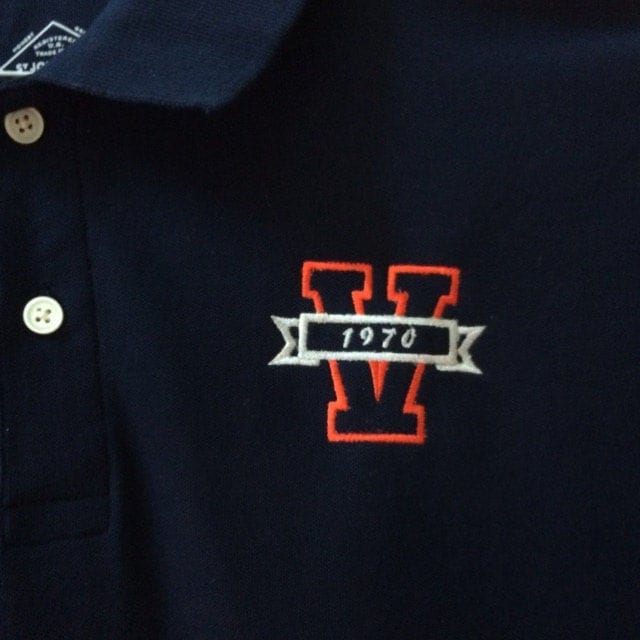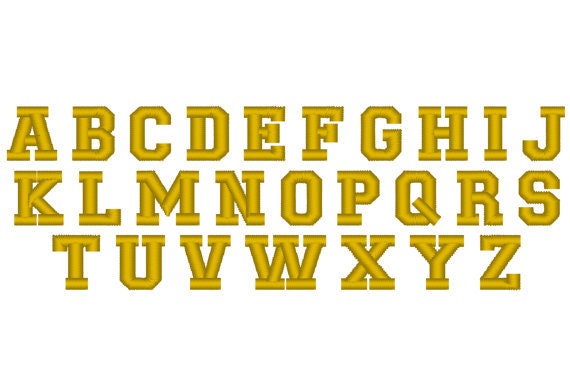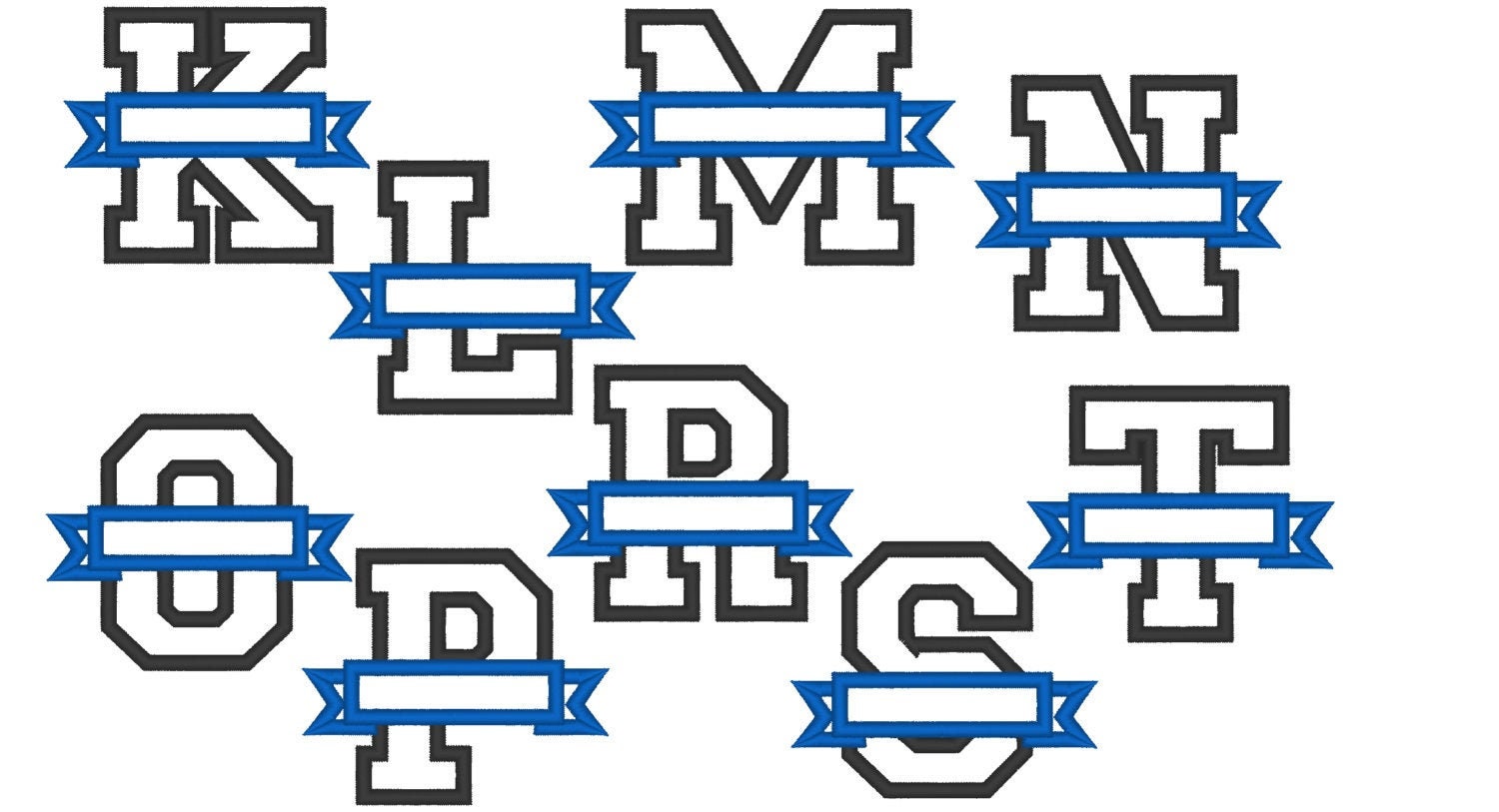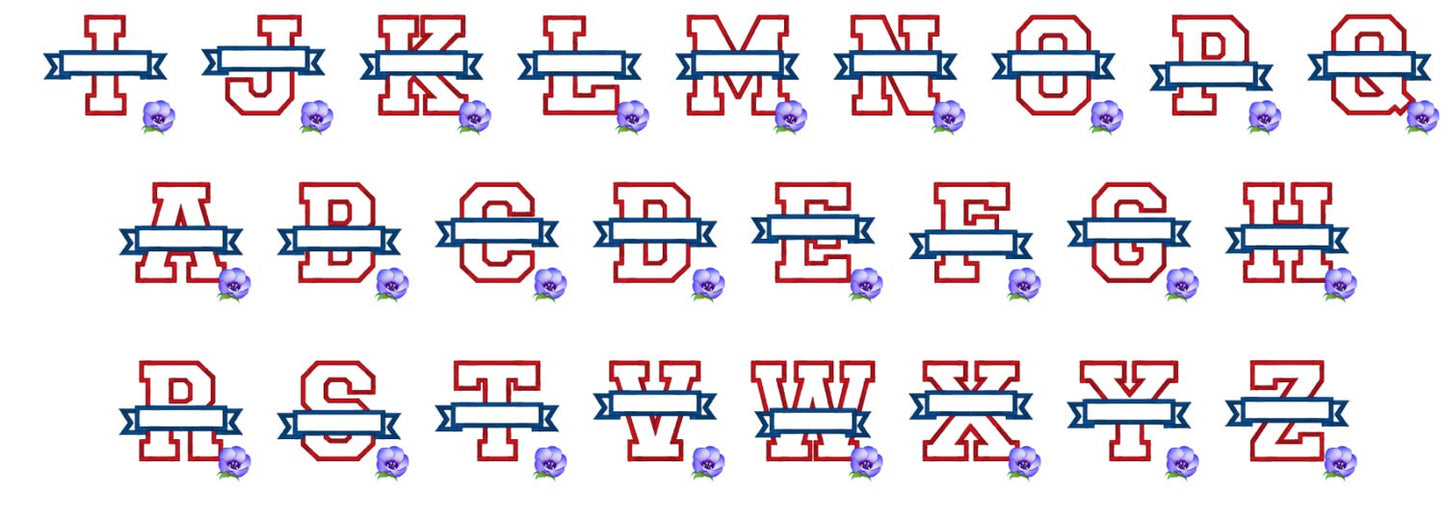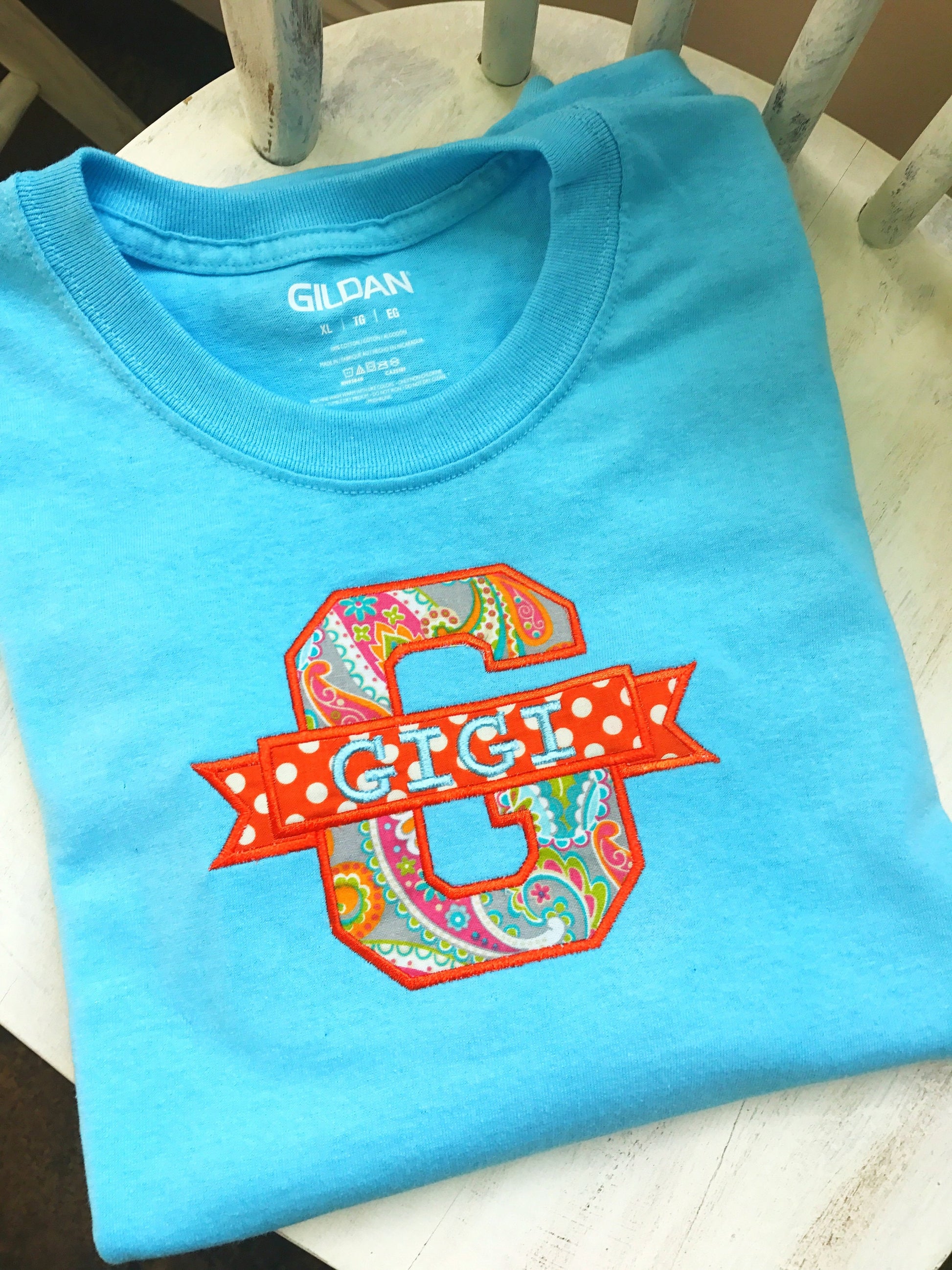
3" - shown in the first image
4", 5"
This set also contains 4 Sizes of the small font shown in the picture in yellow.
Sizes will fit into the split in the applique letters.